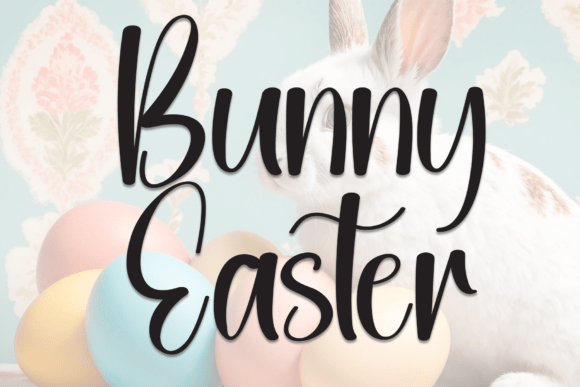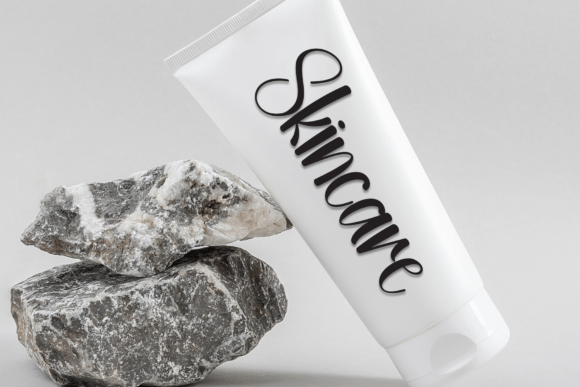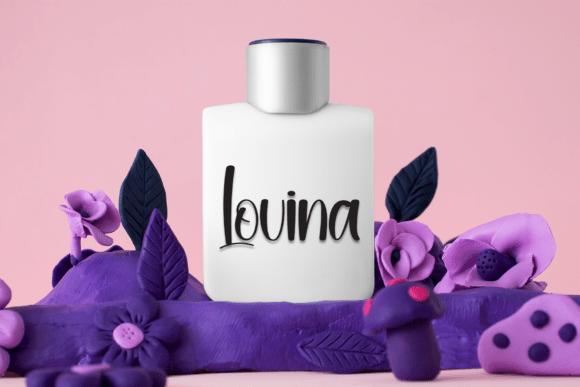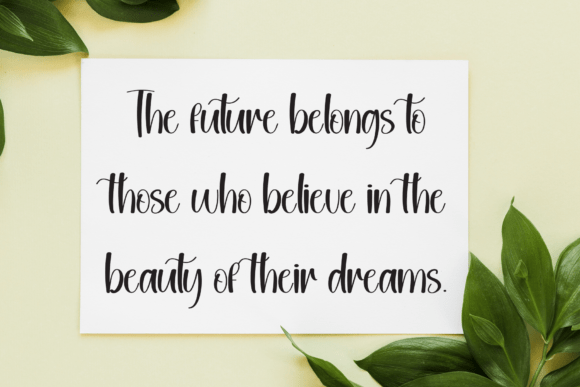
Bunny Easter Font
About the Bunny Easter Font
Let us introduce you to Bunny Easter Font, where timeless design meets modern craftsmanship. A charming script handwritten font that brings a personal, elegant touch to your designs. With smooth curves, natural flow, and a slightly casual style, it feels like it was written with care, making it ideal for wedding invitations, personal branding, greeting cards, and lifestyle blog graphics. Its versatility shines in both romantic and modern aesthetics.
Its friendly, slightly whimsical personality makes it perfect for projects requiring a touch of charm and approachability, such as children’s books, packaging for artisanal products, or social media graphics. However, its script nature and relatively loose letterforms mean it’s less suitable for body text or UI elements where legibility is paramount. Avoid using it in long paragraphs or for small sizes.
For optimal visual balance, pair Bunny Easter with a clean sans-serif like Montserrat for a modern feel, or a classic serif like Garamond for a more traditional aesthetic. A simple geometric sans-serif could also work well, creating a nice contrast between the hand-drawn quality of Bunny Easter and the precision of the geometric typeface.
Consider using it as an accent font alongside a more legible typeface for headlines or short bursts of text, maintaining a consistent brand voice and visual hierarchy across your design.